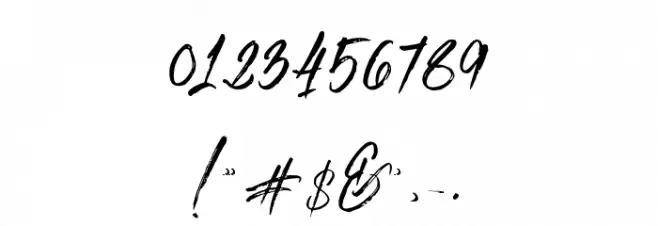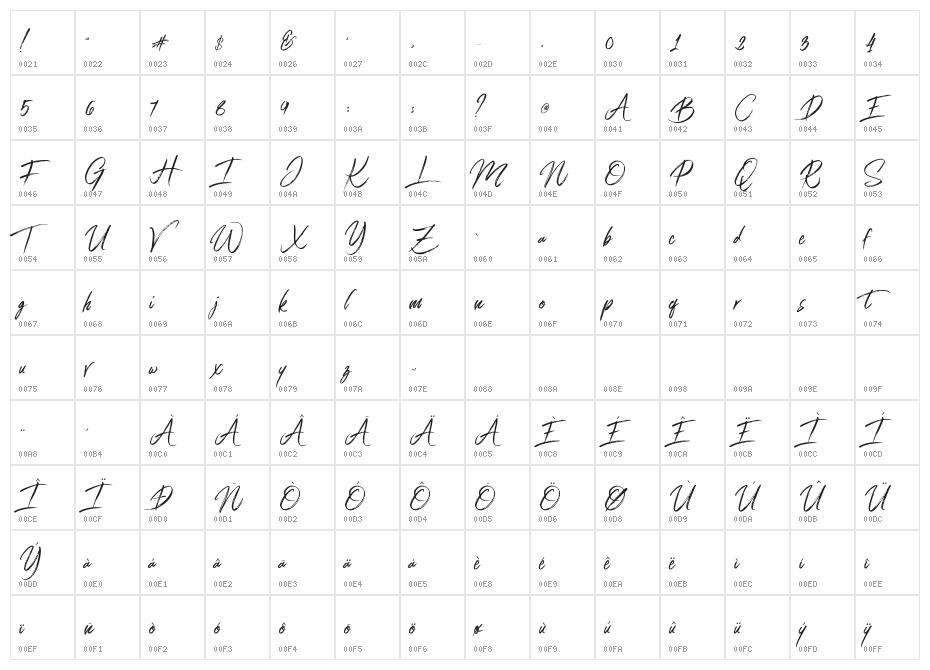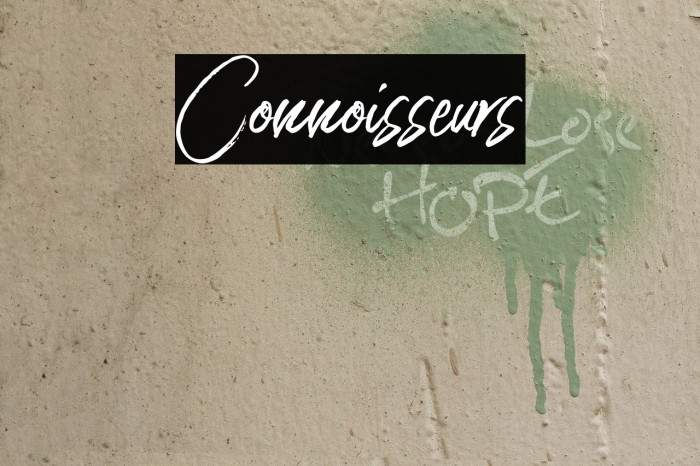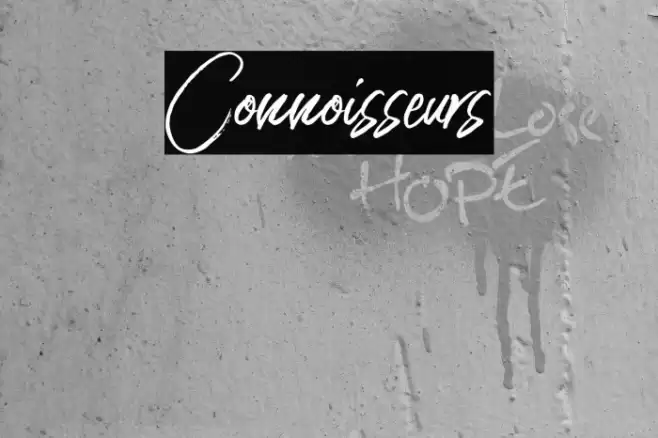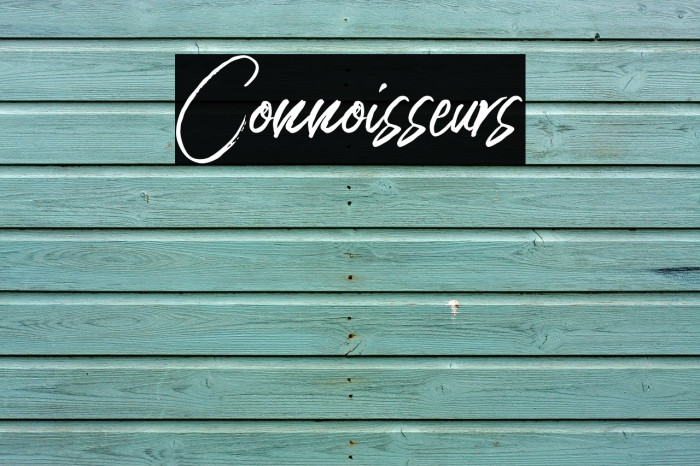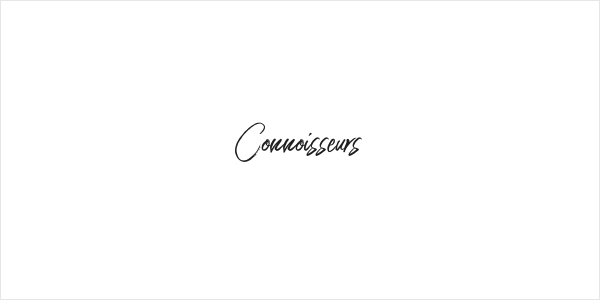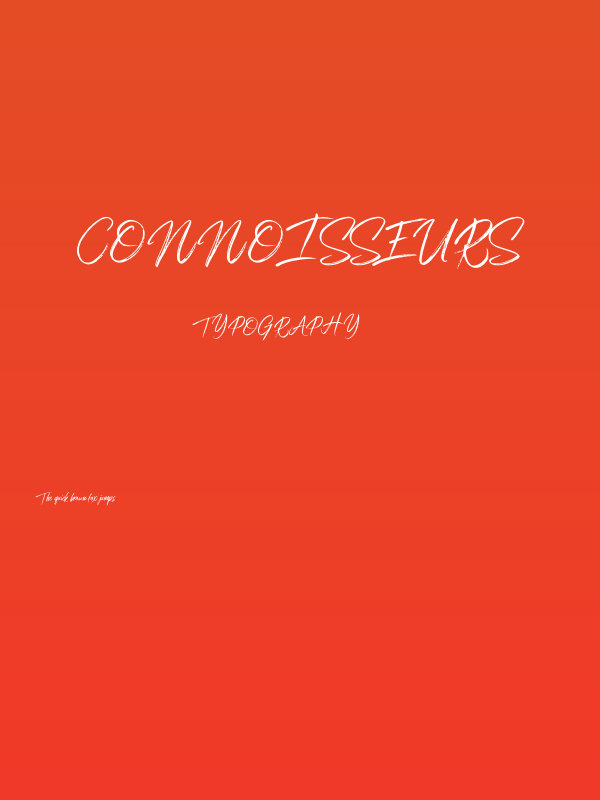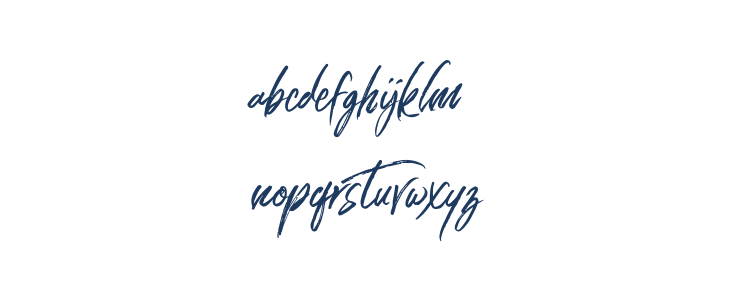
Connoisseurs Font
Connoisseurs Description
This font exudes a dynamic and artistic flair, characterized by its fluid, cursive strokes that mimic the elegance of handwritten script. The uppercase letters are bold and sweeping, with a sense of motion and energy, while the lowercase letters maintain a cohesive flow, enhancing readability. The numerals and special characters follow the same stylistic approach, ensuring consistency across all glyphs. The overall design is both expressive and sophisticated, making it ideal for creative projects that require a personal touch.